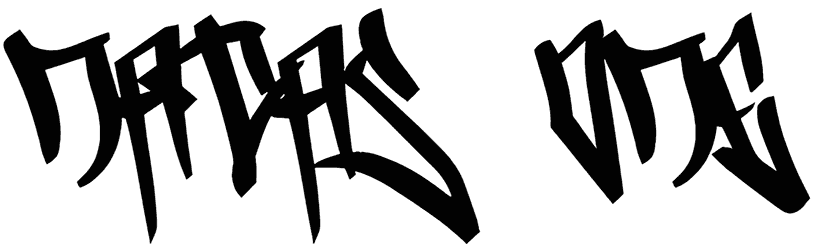
Natas One Font
Designed byFont Monger
If you are looking for a graffiti font that combines an urban street vibe with a gothic style, you’d better look at Natas One. It is an all-caps font without any numbers or most punctuation. Its bold display makes your project more eye-catching, but unfortunately, it doesn’t have good readability. You can use it for movie posters, logotypes, T-shirt prints, flyers, and advertising materials.